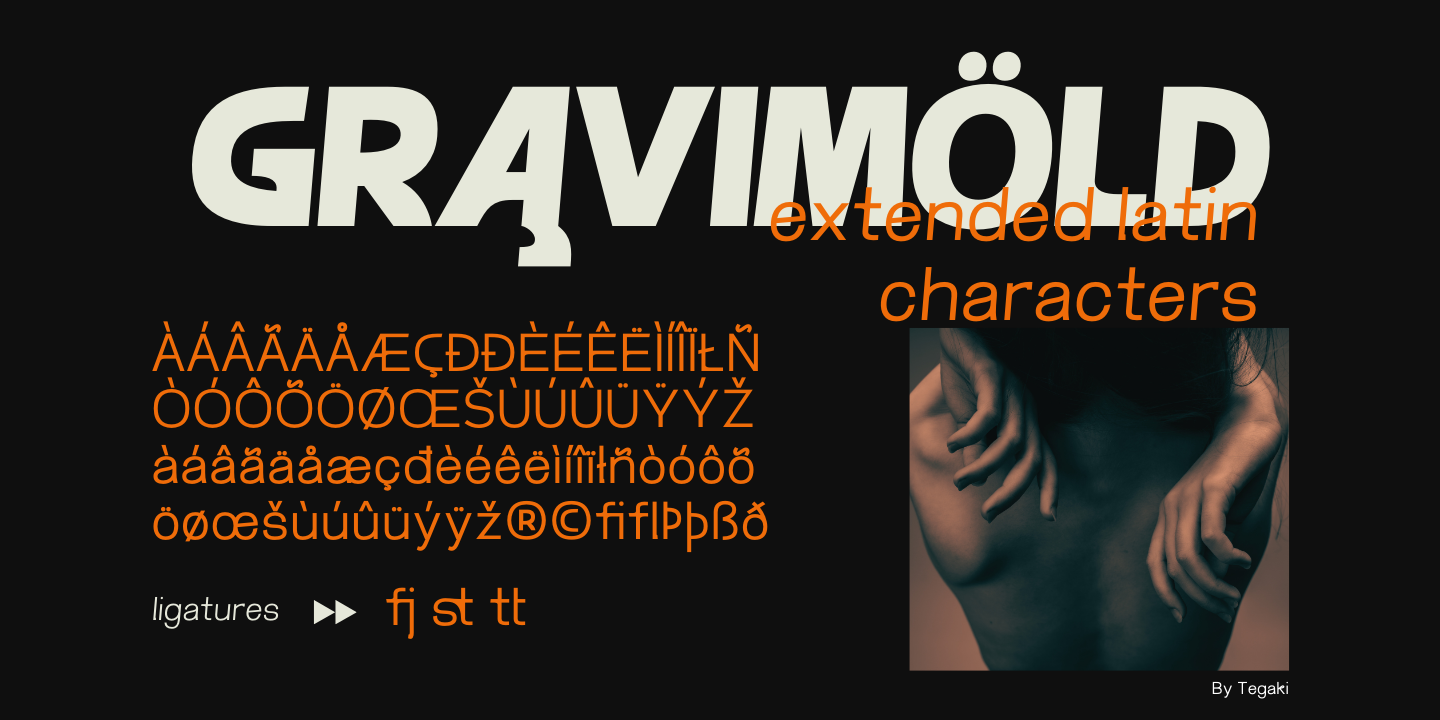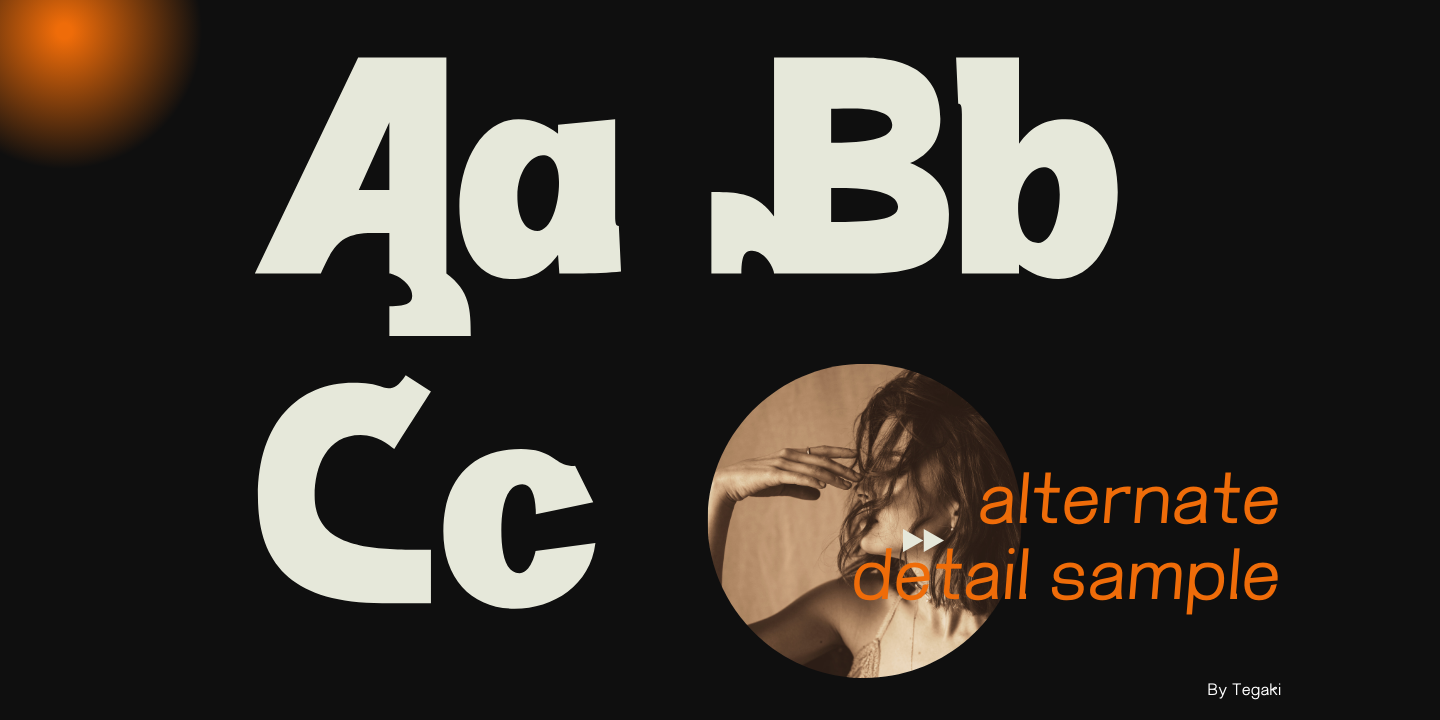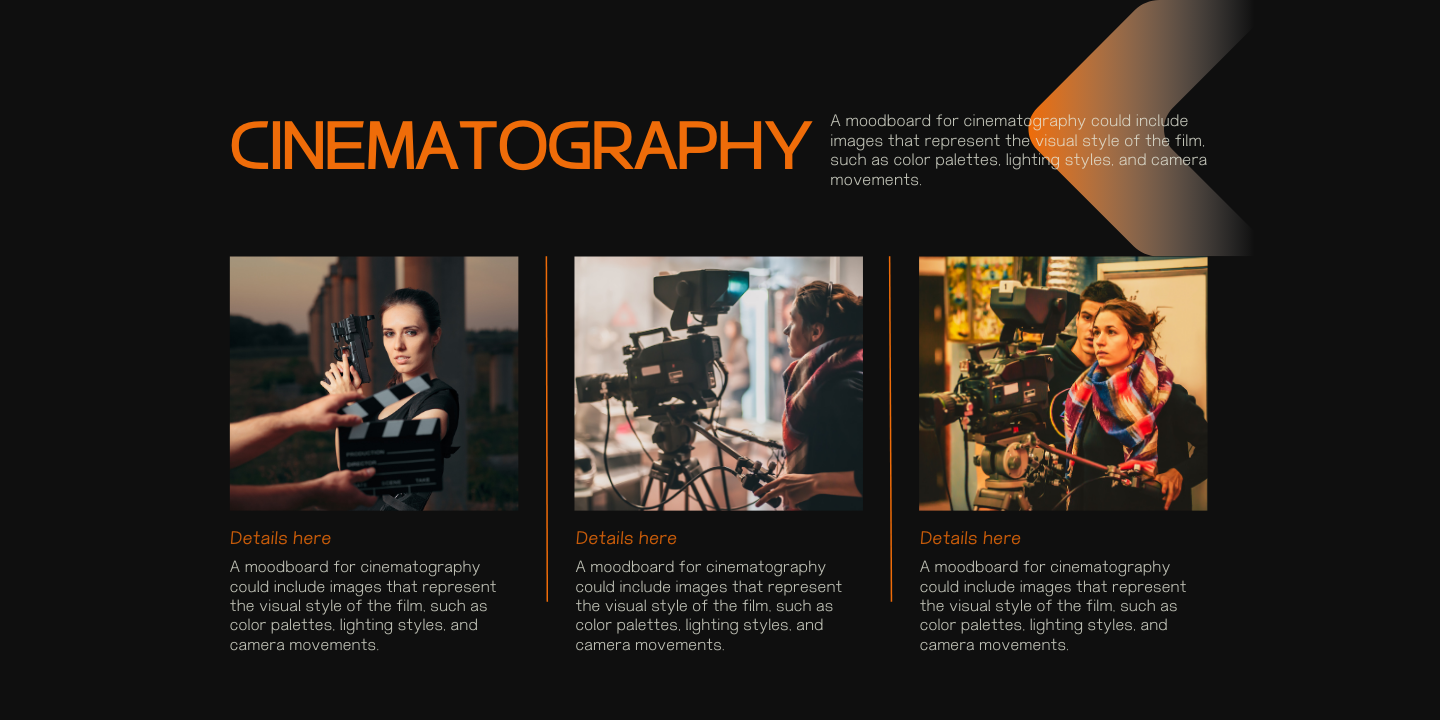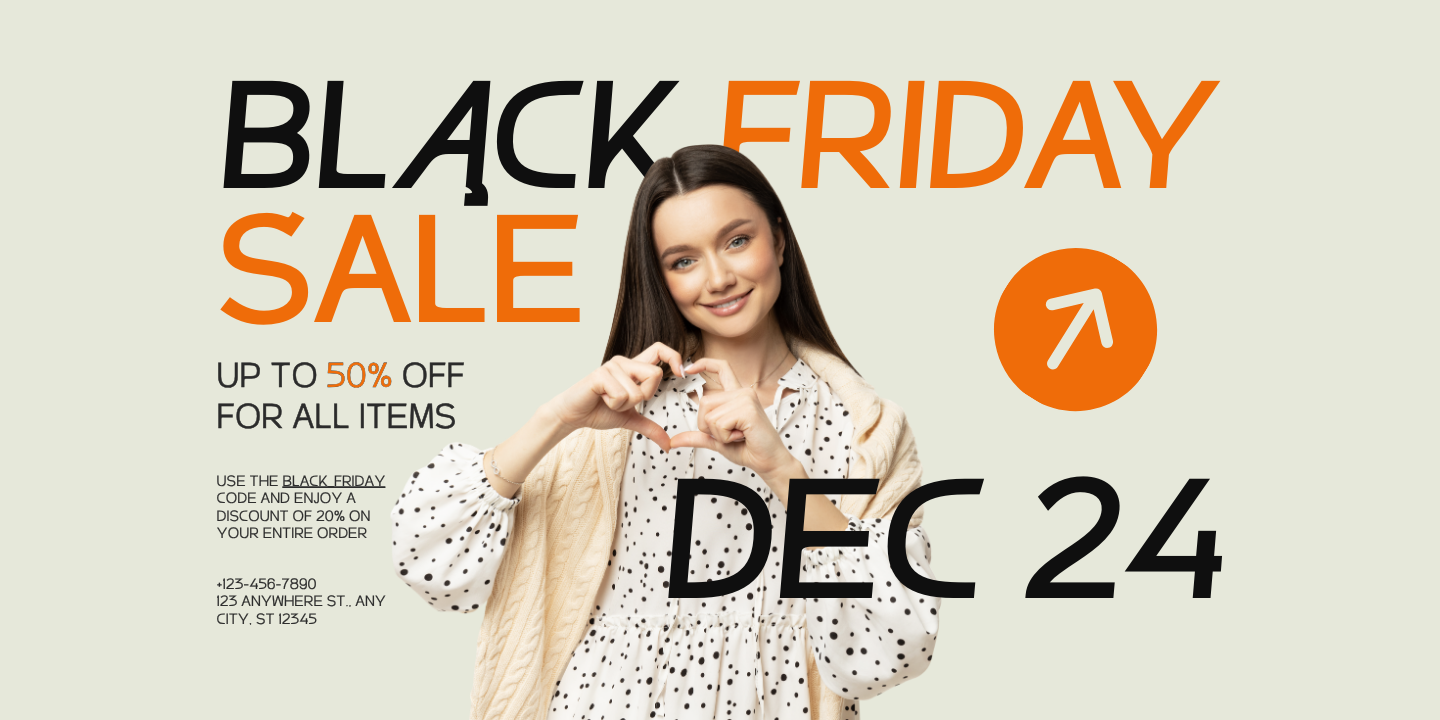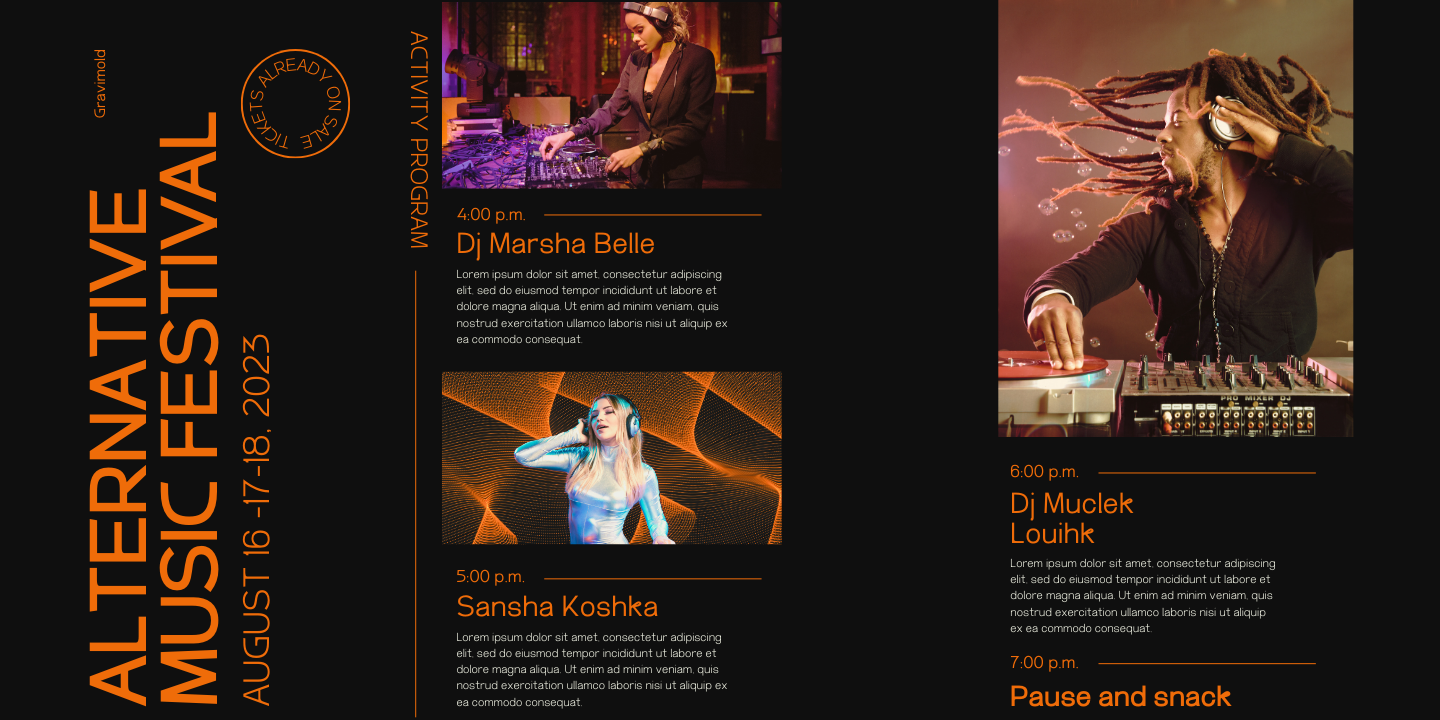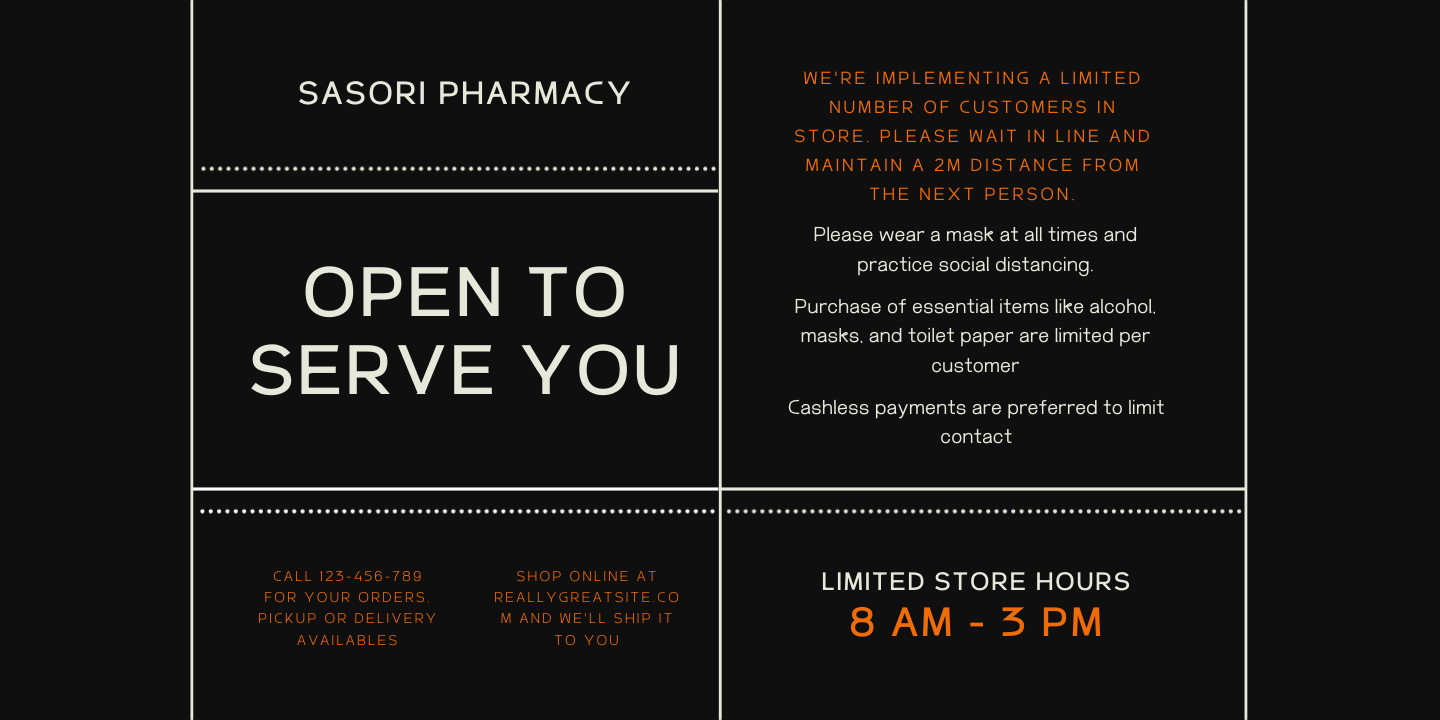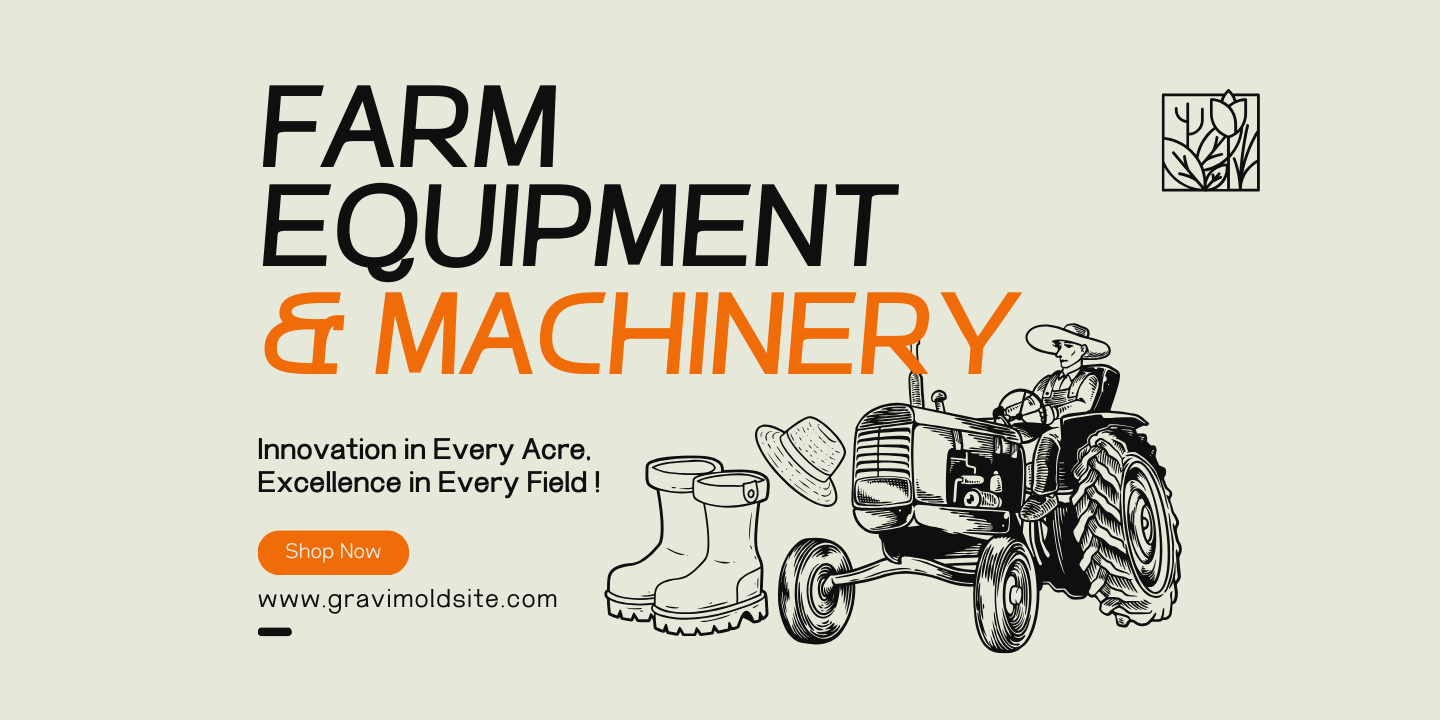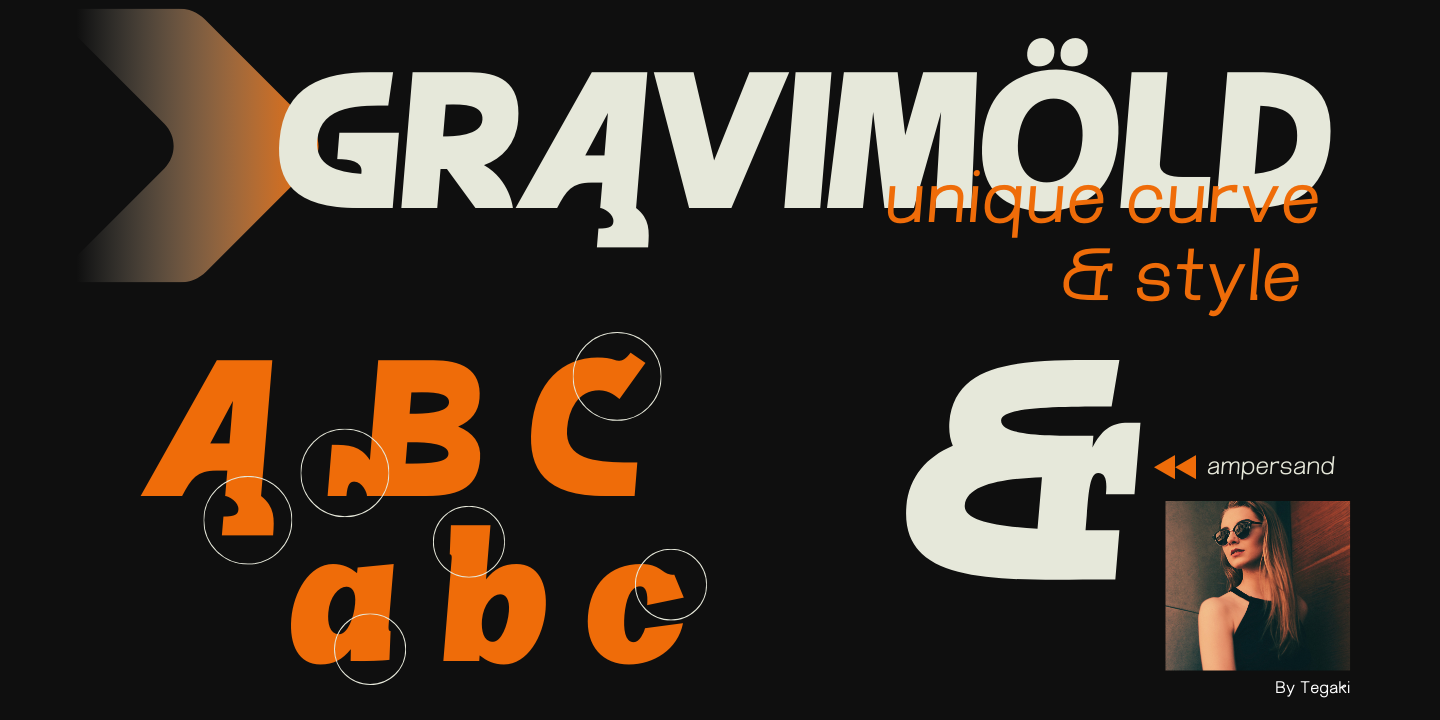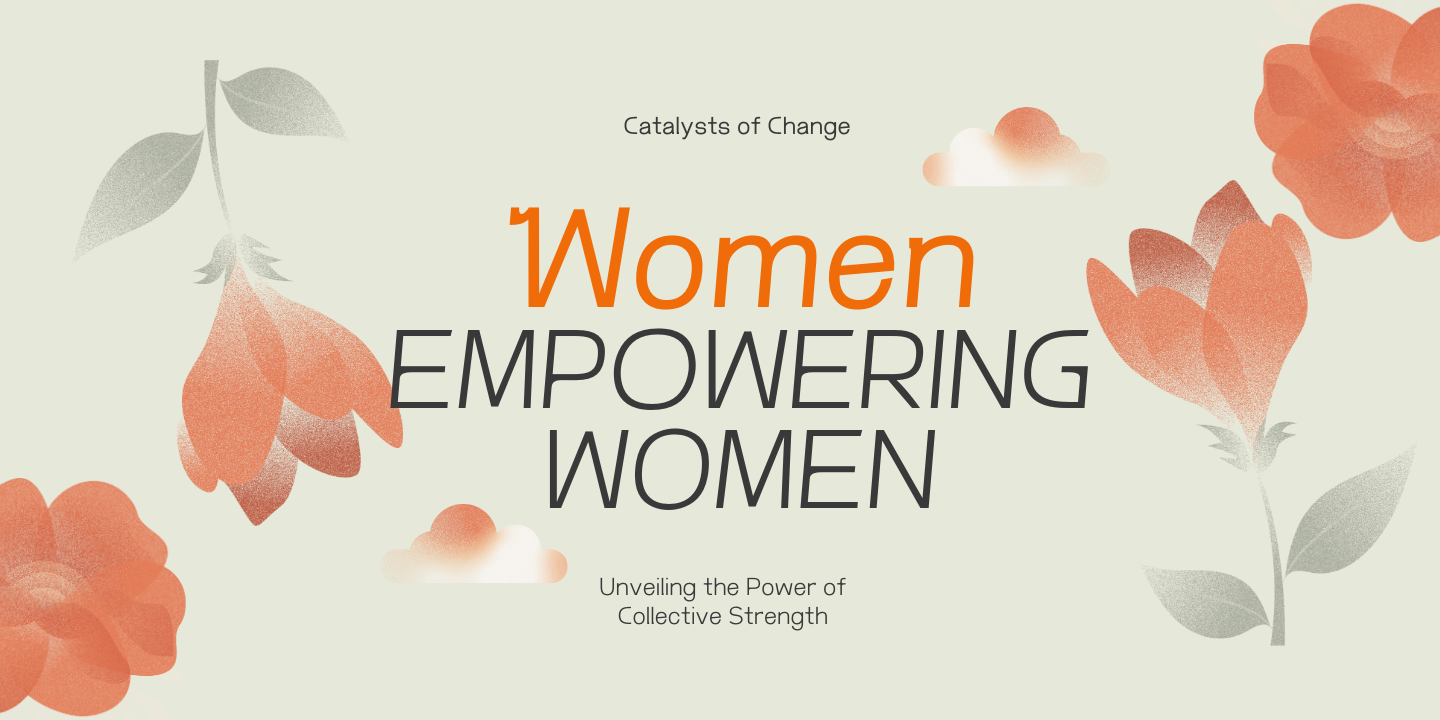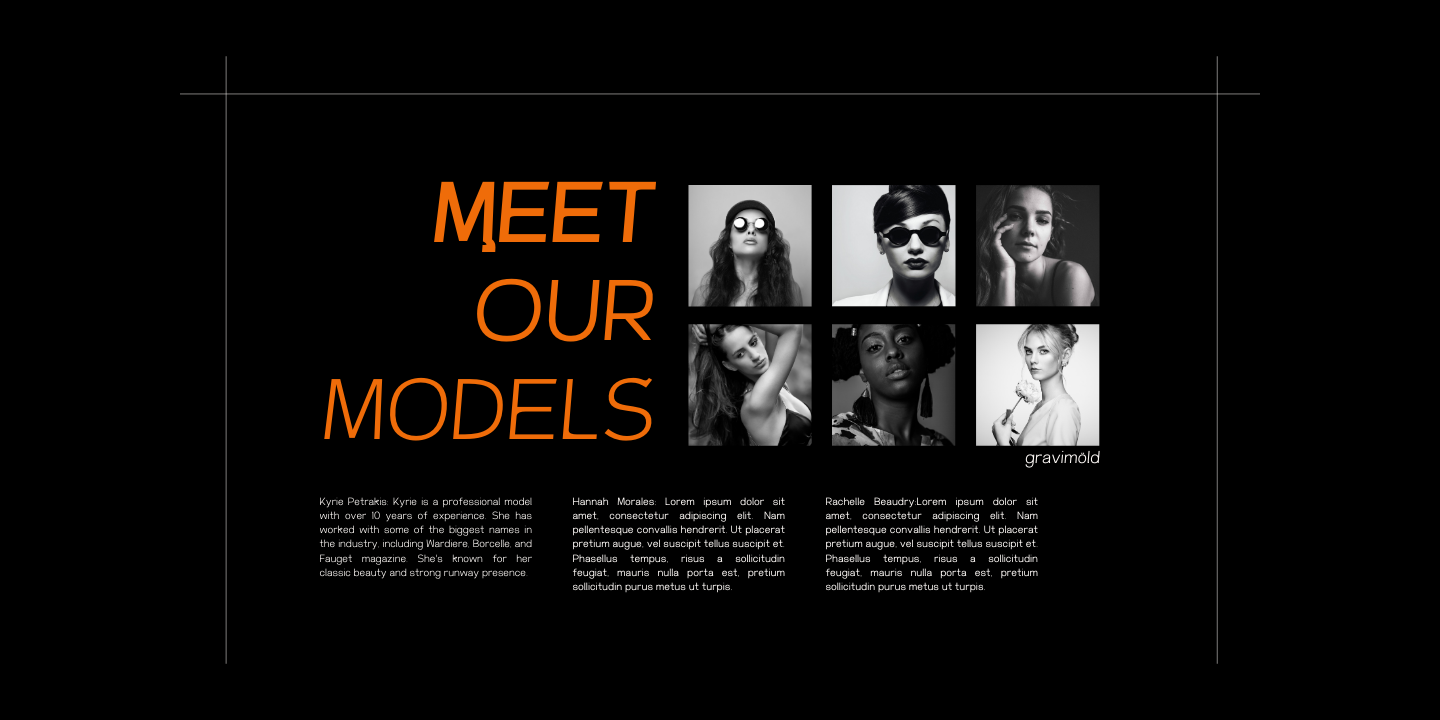
Gravimold (8 fonts)
- Thin: Delicate and refined, ideal for elegant designs. The slant style adds a subtle italic touch.
- Regular: Well-balanced and highly readable, suitable for both body text and headlines. The - slant style offers gentle emphasis.
- Bold: Strong and impactful, perfect for headlines and titles. The slant style creates a dynamic, eye-catching effect.
- Black: Maximum impact and visibility, great for prominent text elements like logos. The slant style results in a striking, assertive appearance.
Each weight and its corresponding slant style ensure a consistent visual harmony while offering designers a range of options to achieve various typographic effects, from subtle emphasis to bold declarations. This versatility makes the font highly adaptable for modern design needs across different media and applications.